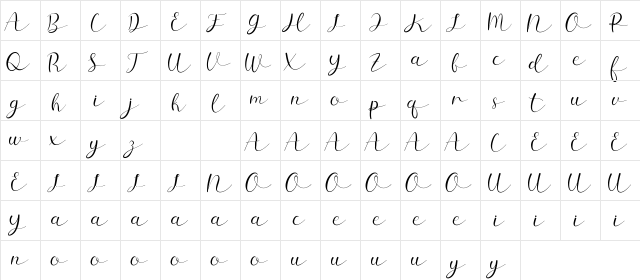
Sillmy DEMO Regular
| Foundry | edric studio |
| Designer | Fahri F |
Design Context for Sillmy DEMO Typeface
Sillmy DEMO is a composed and adaptable typeface that performs quietly and consistently across a wide range of design contexts.